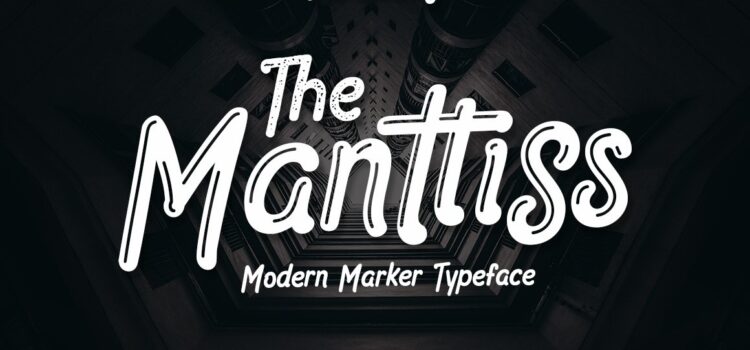
manttiss
Manttiss Font – Free Download Introduction to Manttiss Font Manttiss is a modern marker font that comes in 4 versions: Solid, Inline, Rough & Just Inline. 📸 Preview Gallery 6 images 📌 Product Name Manttiss Font 👤 Author Hafidz Qadrie